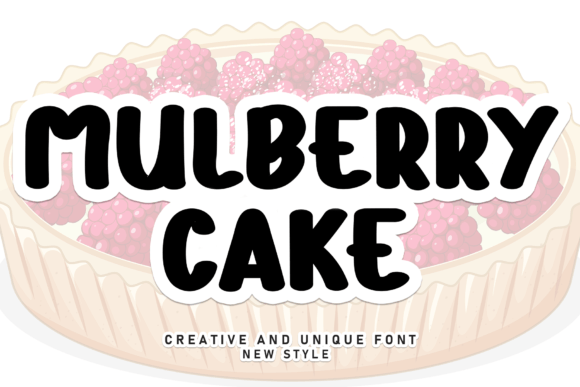
Mulberry Cake: A Friendly Handwritten Display Font for Digital Brands
Last week, I was refining the hero section of a boutique coaching website—a warm, values-driven space focused on mindful entrepreneurship. The client wanted something that felt personal but polished, approachable but intentional. I opened my font library and landed on Mulberry Cake. Not as a last-minute flourish, but as a deliberate choice after testing three other handwritten display fonts that either overwhelmed the layout or felt too casual for the brand’s quiet confidence.
Mulberry Cake is a sweet, friendly handwritten display font—light in stroke weight, generous in spacing, and full of subtle personality. It’s not overly ornate or script-heavy; instead, it balances charm with clarity. Letters have gentle curves, soft entry/exit strokes, and consistent rhythm—making it far more legible at larger sizes than many decorative alternatives. As a display font, it’s built for impact, not extended reading—and that distinction matters deeply in web design.
I dropped it into the hero headline: “Your Next Chapter Starts Here.” At 48px on desktop and 36px on mobile, it held up beautifully—even over a softly blurred background image. No jagged edges, no uneven kerning, no awkward gaps between letters. That’s rare for a handwritten-style typeface rendered live in the browser. Mulberry Cake ships with clean OpenType features, solid webfont support (WOFF2 included), and no reliance on JavaScript-based rendering tricks. It loaded fast, looked crisp on Retina displays, and stayed legible across iOS, Android, and ChromeOS.
Where does Mulberry Cake shine most? In moments that need emotional resonance—not functional density. Think: the tagline above a course sales page headline, the “Welcome” text in a digital brand kit download, the “Join Us” CTA button on a community landing page, or the “New Arrivals” banner in a small-batch online store. It works especially well when paired with a neutral sans serif—like Inter, Poppins, or even system fonts like -apple-system—for body copy and interface labels. That contrast creates visual hierarchy without sacrificing warmth: Mulberry Cake draws the eye, while the supporting font quietly carries meaning.
On mobile, I tested it in several contexts: as a section heading above testimonials, as overlay text on an Instagram-style product carousel, and inside a floating “Book a Call” button. At 24px, it remained readable—but only when used against high-contrast backgrounds (white text on deep charcoal, or dark ink on off-white). Over busy imagery or low-saturation gradients, I added a subtle semi-transparent backdrop or light text shadow—just enough to preserve legibility without dulling its hand-drawn charm.
One thing I appreciated: Mulberry Cake doesn’t pretend to be a full-text font. It has one weight (regular), no italics or bold variants, and limited language support—primarily Latin-based scripts. That’s not a flaw; it’s clarity of purpose. As a display font, it’s meant for short bursts: headlines, quotes, callouts, logo lockups, social media banners, email headers, and branded PDFs. Trying to use it for navigation labels, form fields, or paragraph text would undermine both usability and brand trust. Good typography isn’t about using *more* fonts—it’s about using the *right* one, in the *right* place.
In practice, I’ve seen Mulberry Cake elevate projects where tone matters as much as function: a ceramicist’s portfolio site (used for studio name + seasonal collection titles), a wellness newsletter header (paired with Lora for article bylines), and a digital workshop landing page (where it anchored the “What You’ll Create” section). In each case, it helped signal care, craft, and human intention—not just visual flair. That’s the quiet power of thoughtful display typography: it shapes how users *feel* before they even read a word.
Pairing advice? Keep it simple. A single display font + one highly legible sans serif covers 95% of web needs. Try Mulberry Cake with Inter (for clean tech-adjacent brands), with Manrope (for friendly SaaS tools), or with a warm grotesk like Work Sans (for creative agencies). If your brand leans editorial or literary, a restrained serif like Cormorant Garamond can add quiet sophistication—just keep Mulberry Cake reserved for top-of-funnel moments where friendliness opens the door.
It’s easy to underestimate how much a display font contributes to perceived polish. A rushed headline font says “I didn’t think this through.” Mulberry Cake says “I chose this carefully”—and that intention shows up in user trust, time-on-page, and how people remember your brand long after they scroll away. It’s not flashy. It’s not trying to be everything. It’s simply a well-made, human-scaled tool—one that helps digital spaces feel more like places people want to stay.